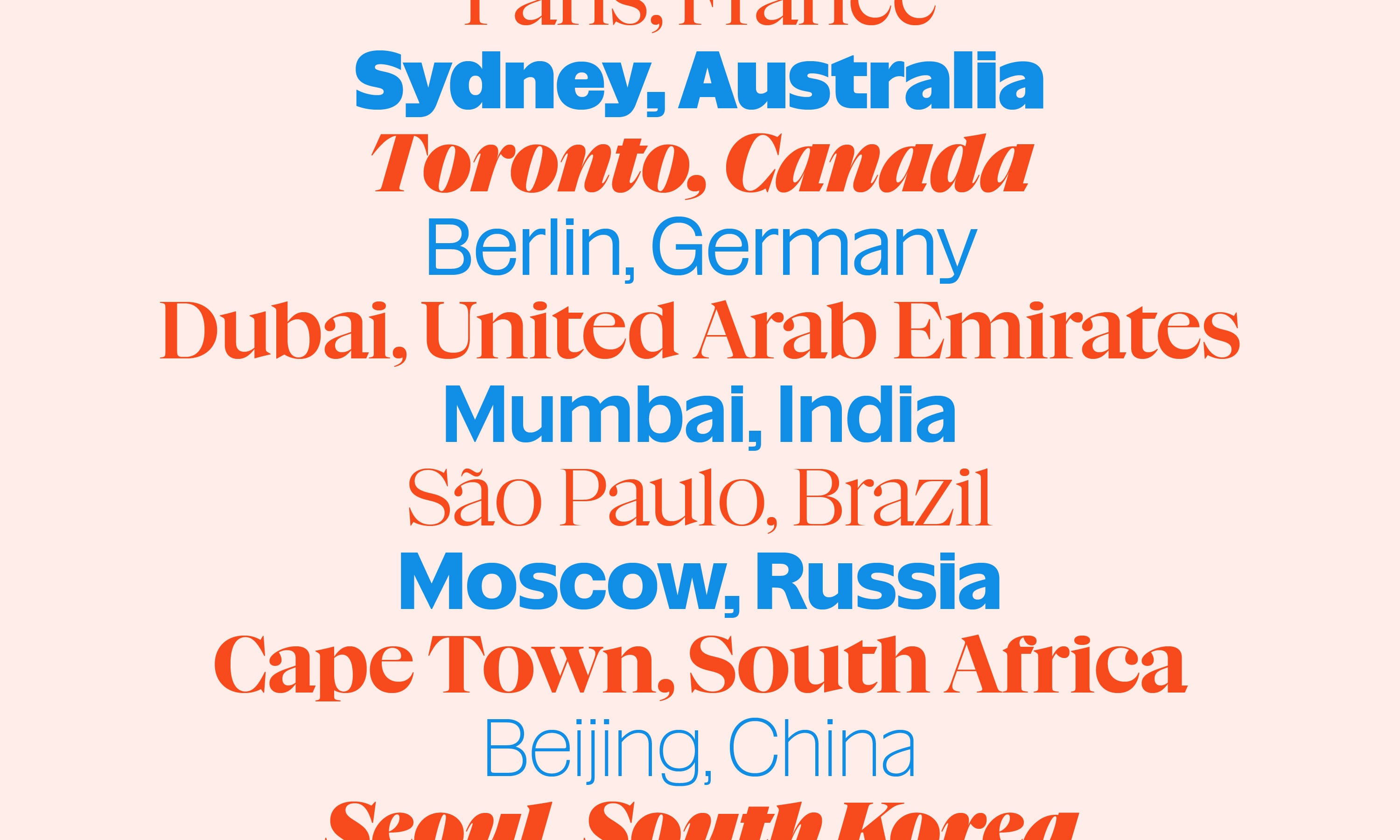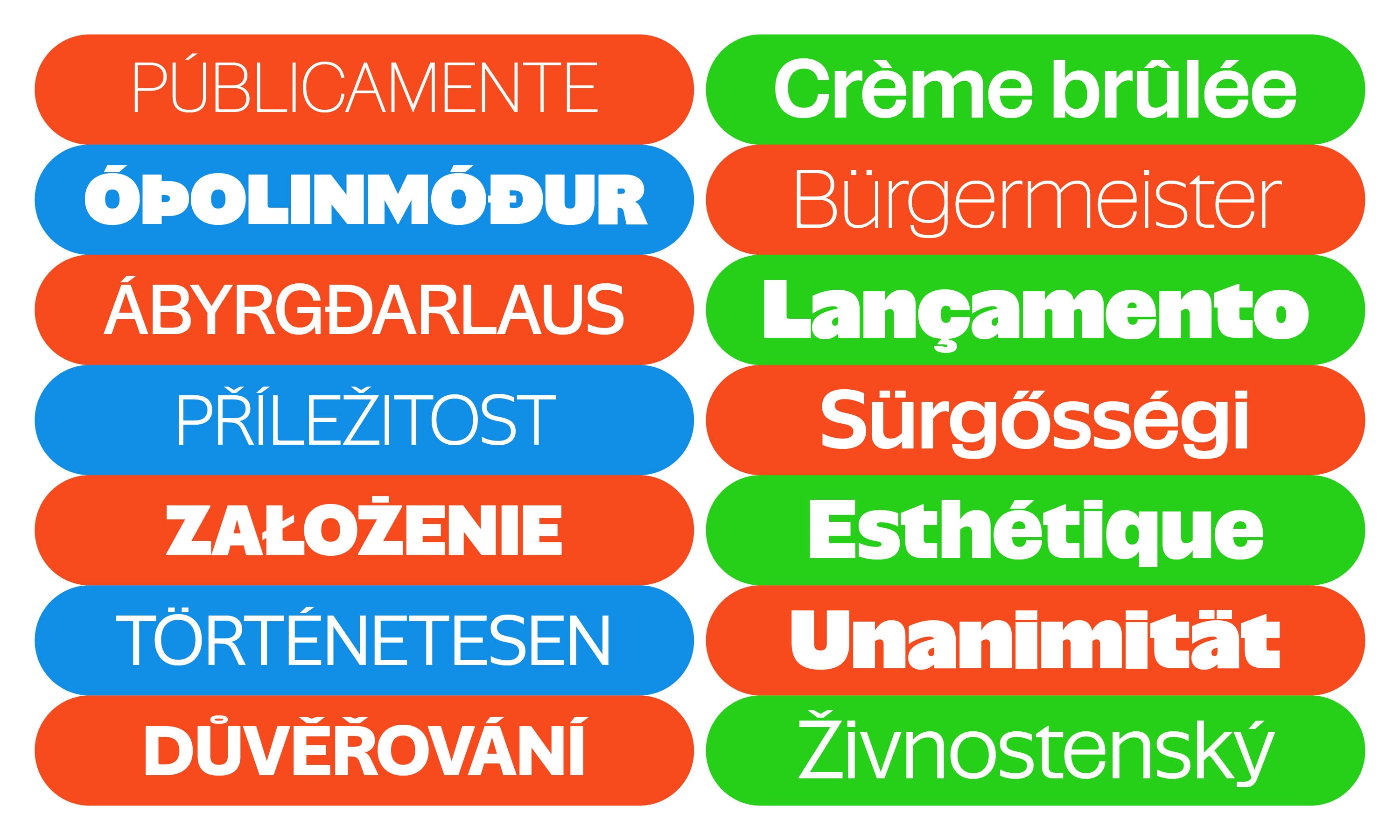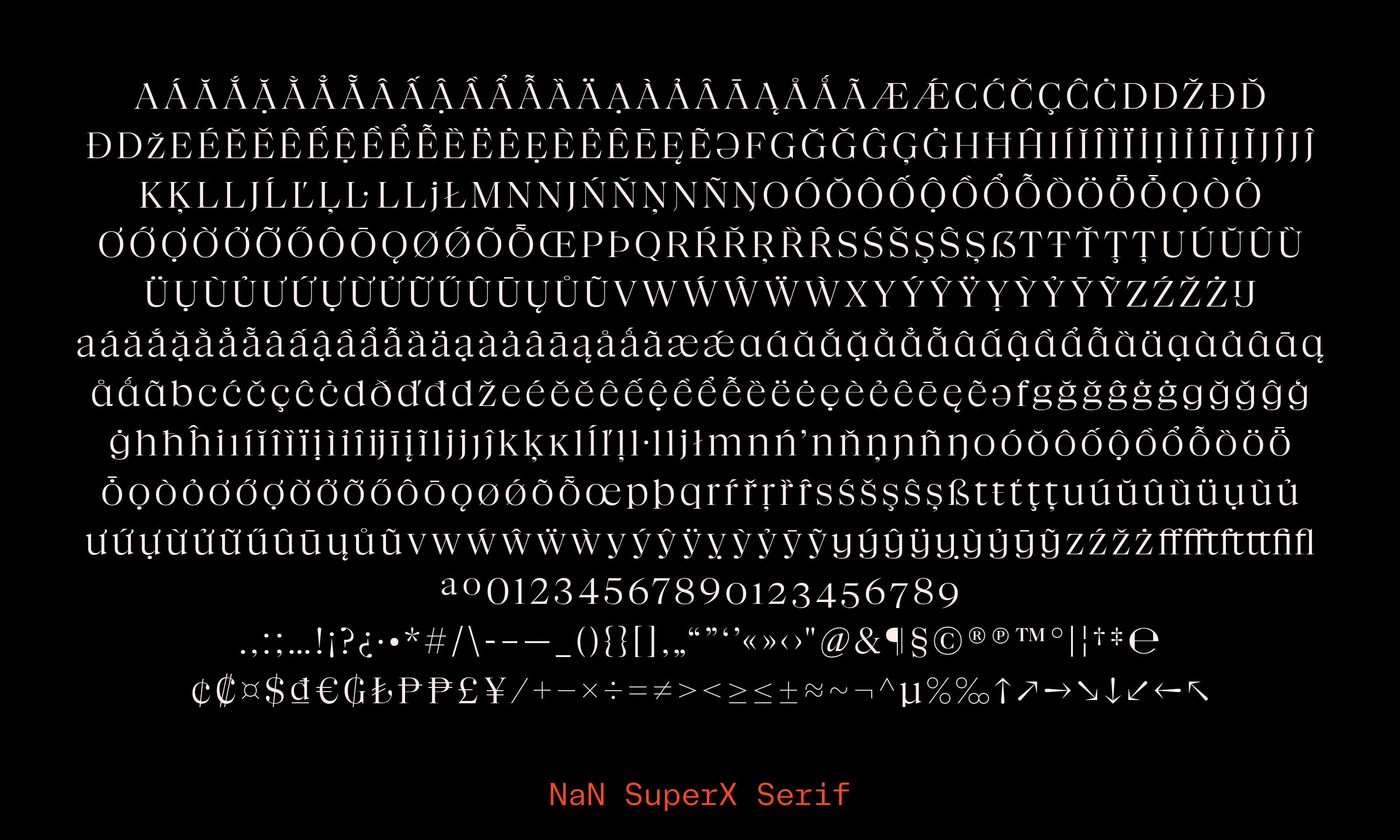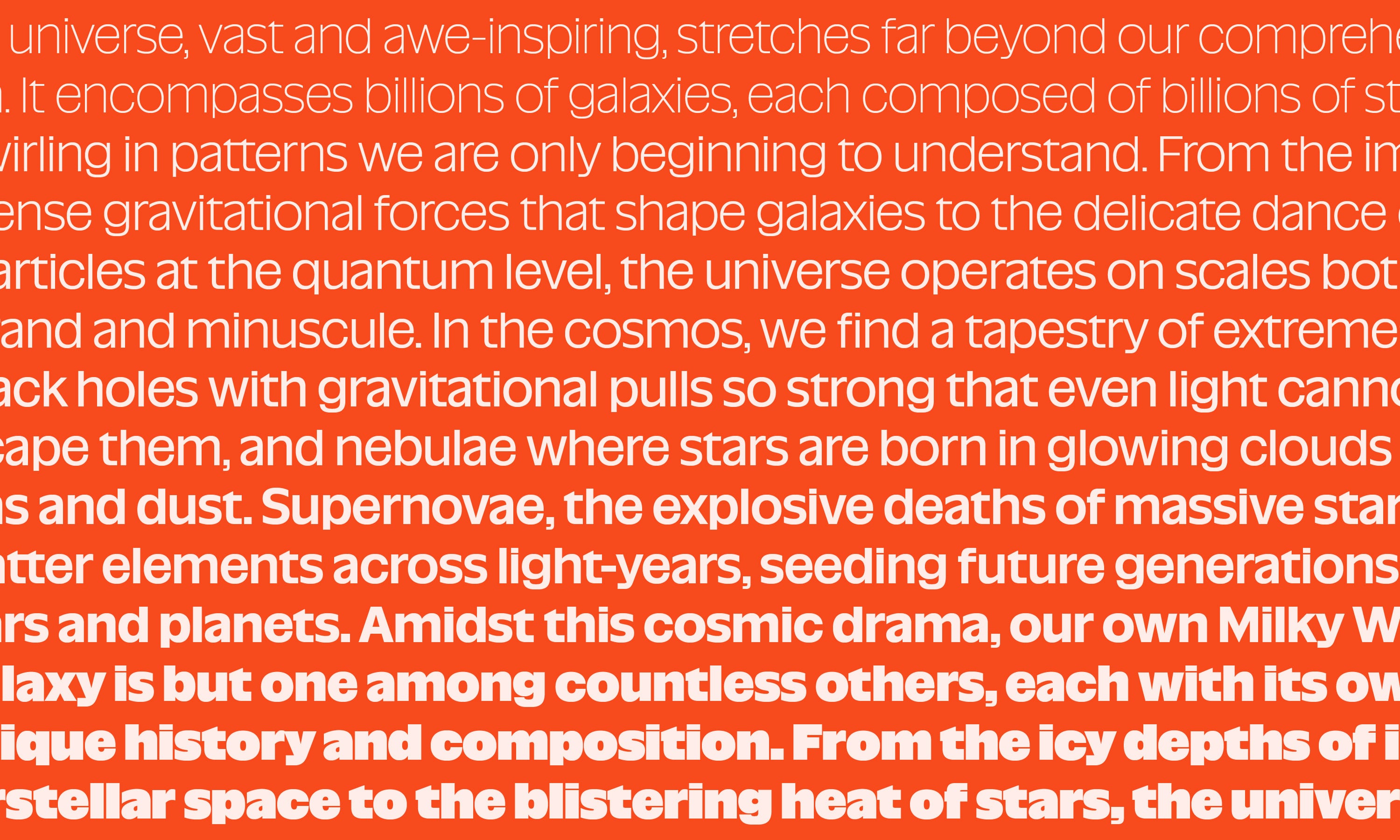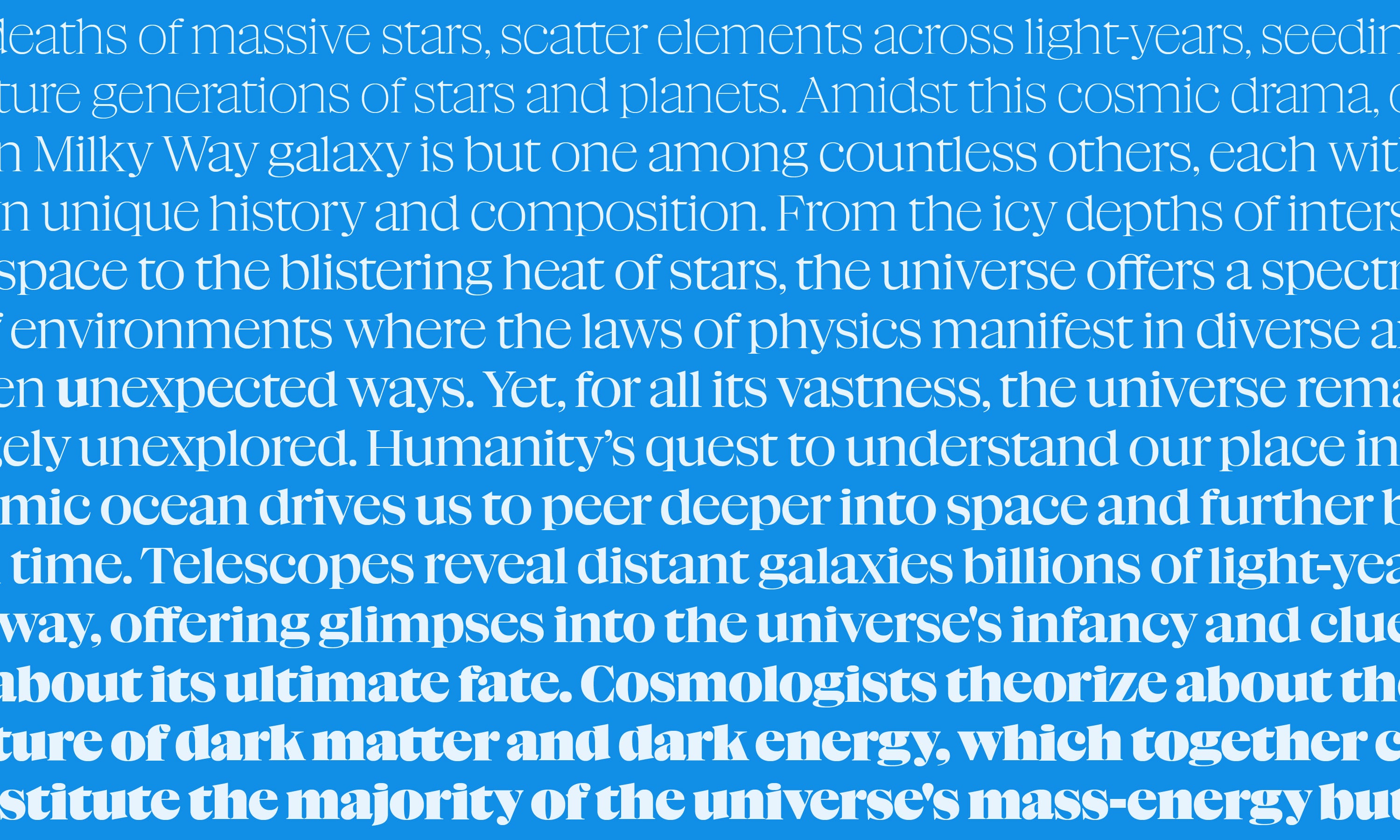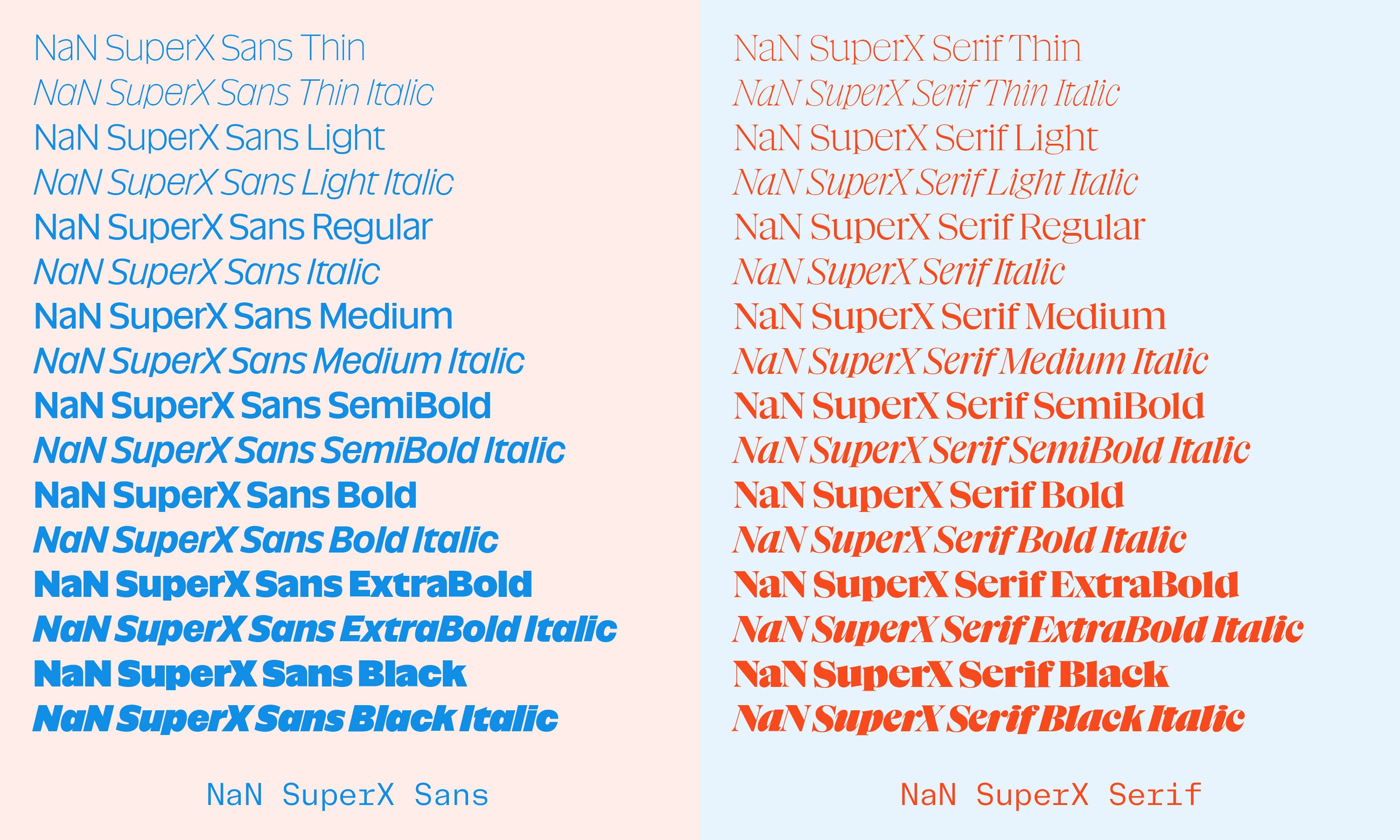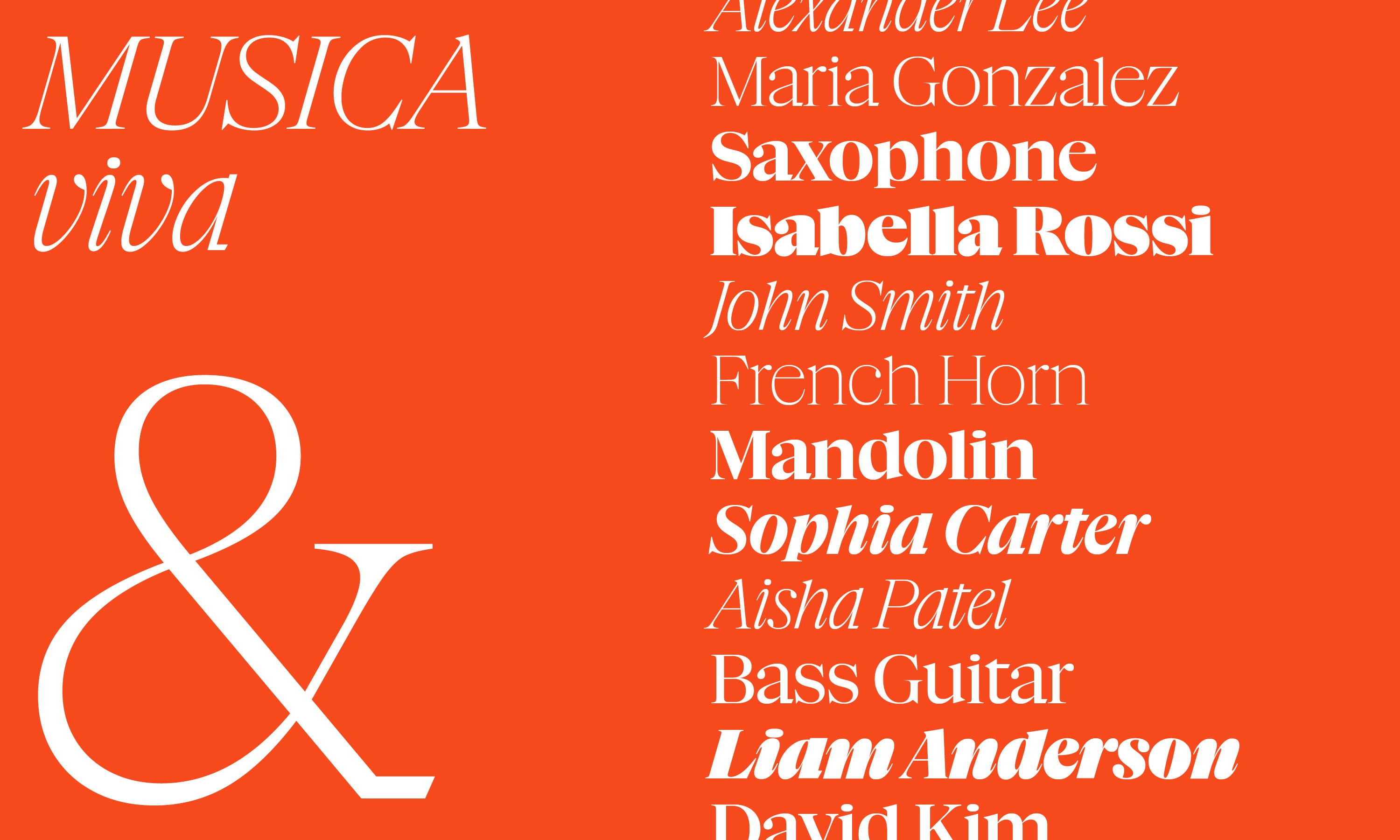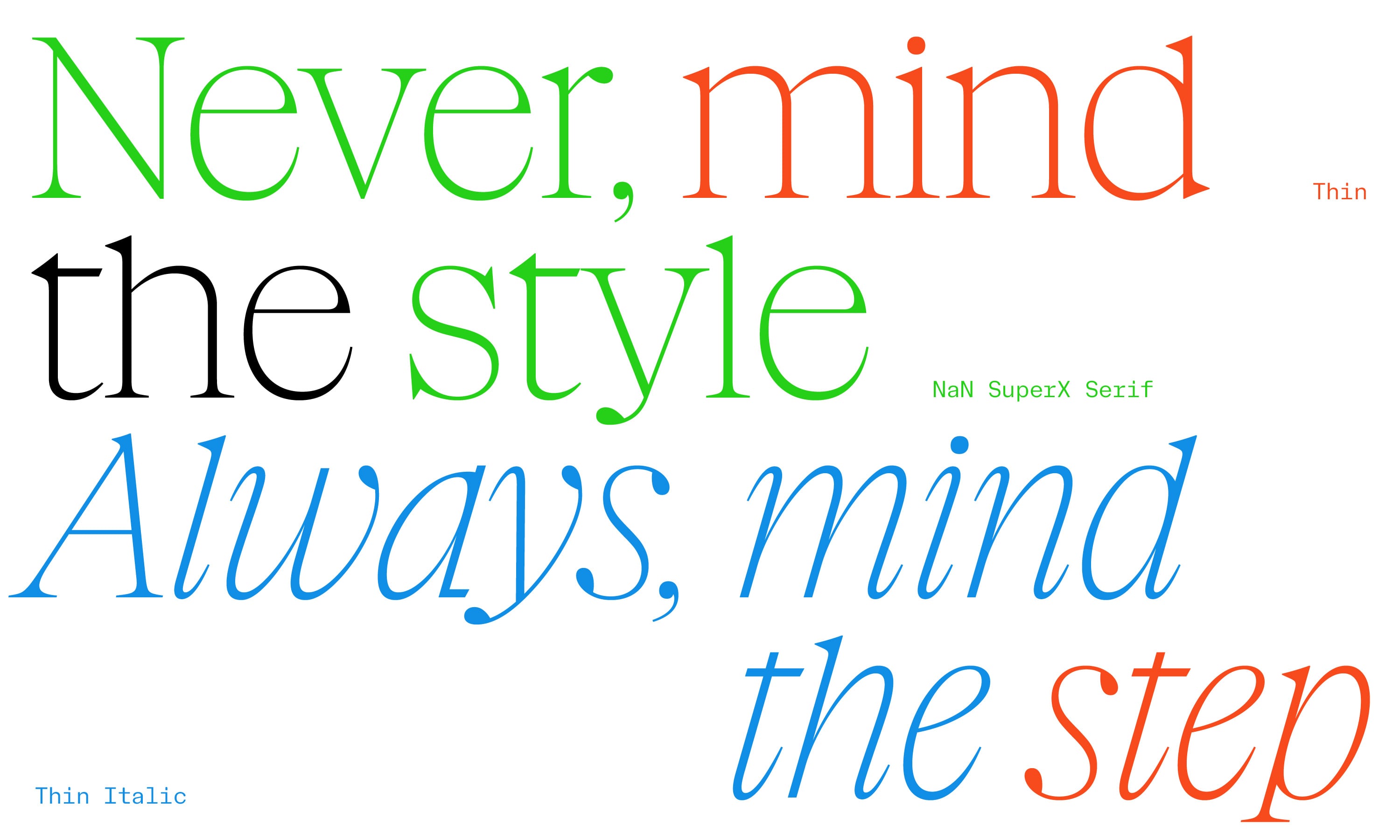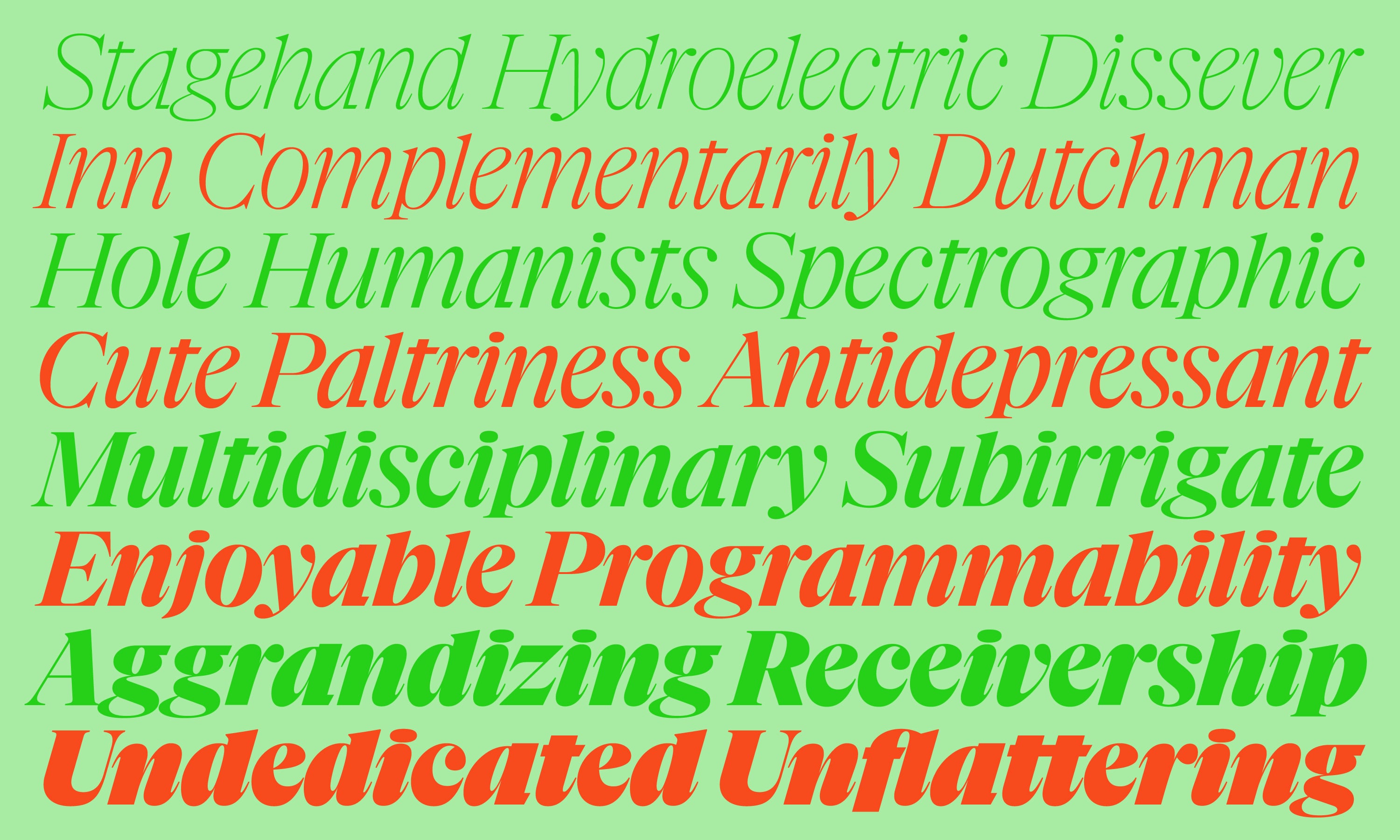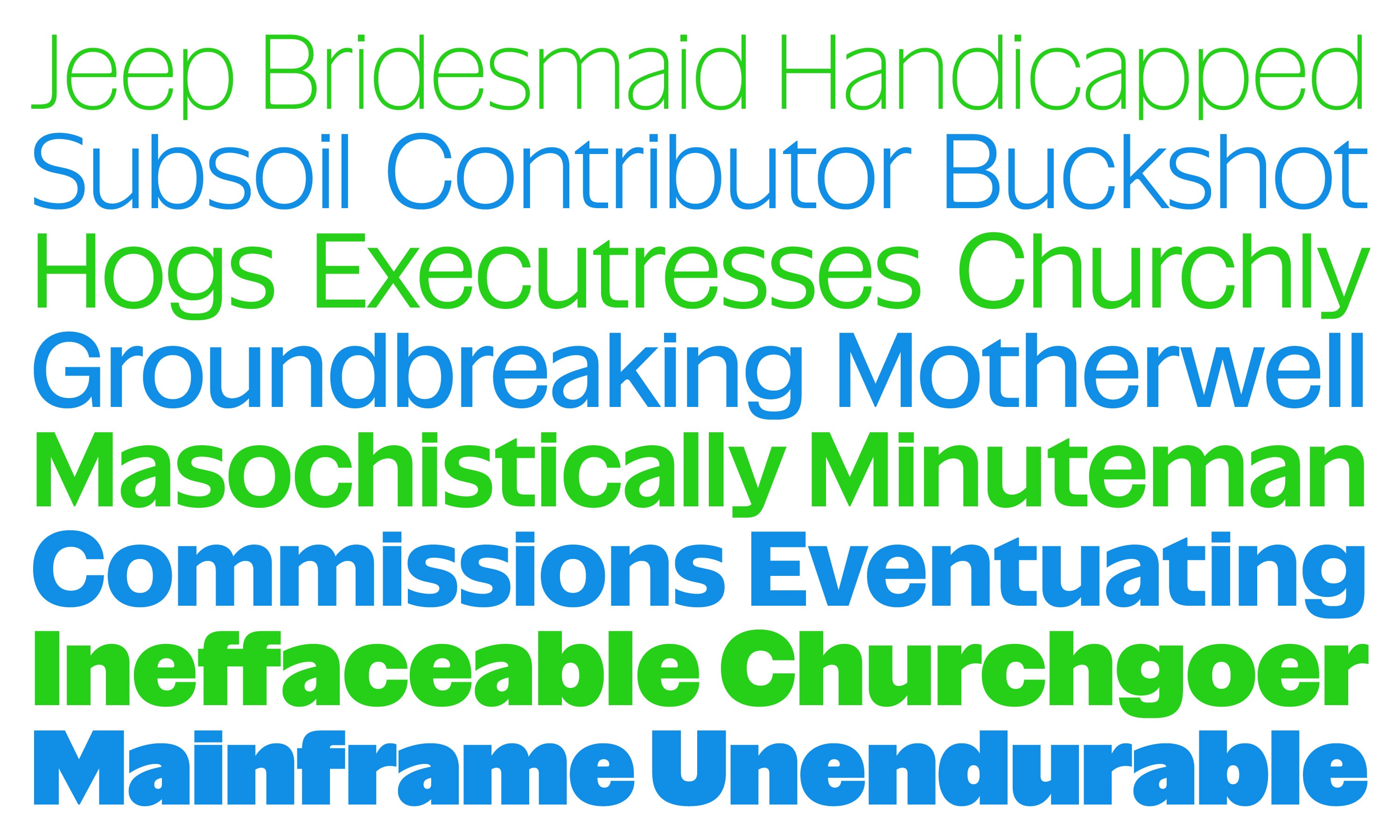
About NaN SuperX
NaN SuperX is NaN’s hommage to phototyping era typefaces with a disproportionately big x-height; a system comprising Sans and Serif. All come in 8 weights plus italics in both Latin and Arabic in 3 optical sizes.
NaN SuperX Serif is a high contrast old-style serif with leaf-shaped tear-drops and a dynamic italic rooted in pointed-nib calligraphy. SuperX Serif achieves a balance of vividness and sleekness through its detailing: vivid round shapes, smooth shoulders in the roman and italic; but a sleek angular tail for the /a, sharp apexes for the /V/v/W/w and vertical serifs for the /C/S/sx§/Z/z, etc.
NaN SuperX Sans is a hybrid; a humanist sans with grotesque detailing or the contrary. Its main structure and proportions are borrowed from the Serif, leading to distinct open counters and vertical cuts in the terminals of /a /s /S. Other round letters (/c /e /g) embrace a closed neo-grotesque structure with horizontal terminals, leading to a vivid and surprising character. Quite jolly.
The addition of optical sizes to these families brings their delightful taste to text sizes. In SuperX Text, the X-height and contrast have been slightly decreased, the openings made wider, the metrics looser. The result are sturdier versions of the fonts which keep most of the funk while delivering bulletproof legibility.
SuperX Serif and Sans make a contrasting but matching pair, excelling to set the tone of campaign headlines with a tight line-height.
Typeface: NaN SuperX
Designed by NaN
NaN Team: Hugues Gentile, Fanny Hamelin, Fadhl Haqq, Léon Hugues, Jean-Baptiste Morizot, Luke Prowse, Florian Runge, Jolana Sýkorová
Additional Engineering: Igino Marini
Year: 2024-2025